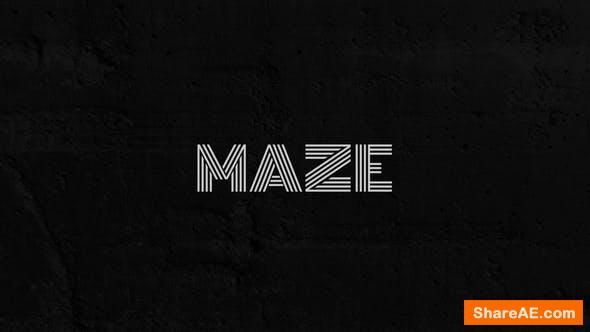
Videohive Maze - Animated Typeface
This is an Animated Typeface that can be used in several occasions like Title Designs, Intros, Trailers, Lower Thirds or any other Text on Screen. The letters are animated in a slow pace, this allows you to change the writing speed from very slow and detailed to fast without any quality loss.
Unlike other Animated Typefaces, you don’t need to drag each letter on its own into the timeline, you can actually write your text in a textbox and let the included Script “EasyType” import all the necessary compositions with the click of a button. A videotutorial explains you how to work with the template and the script.
easy one-click solution with the included script
easy controls